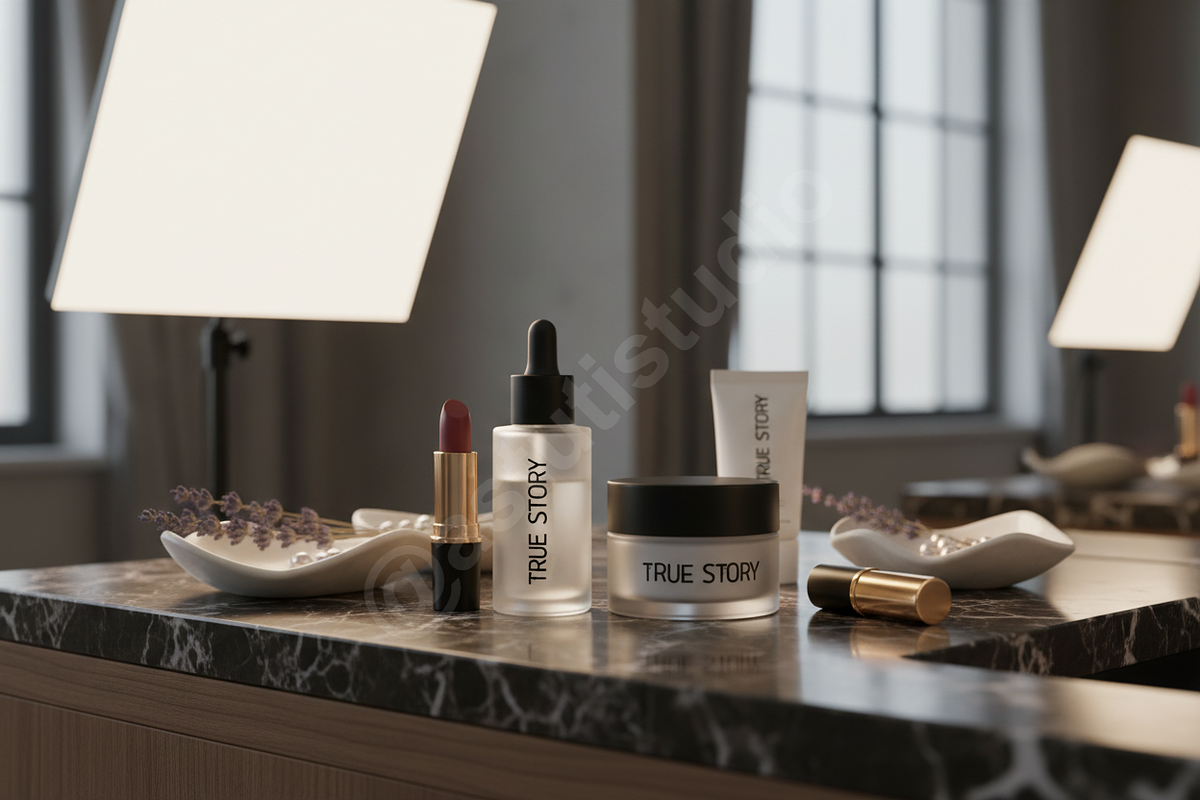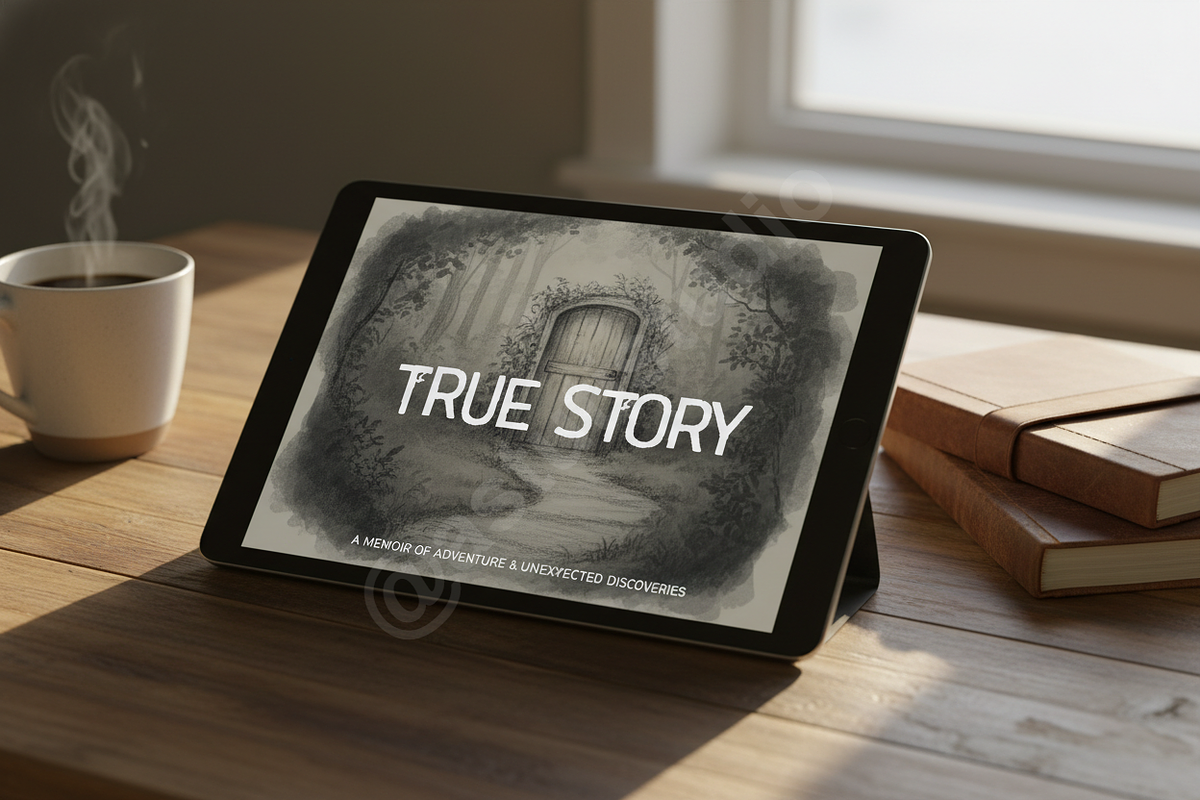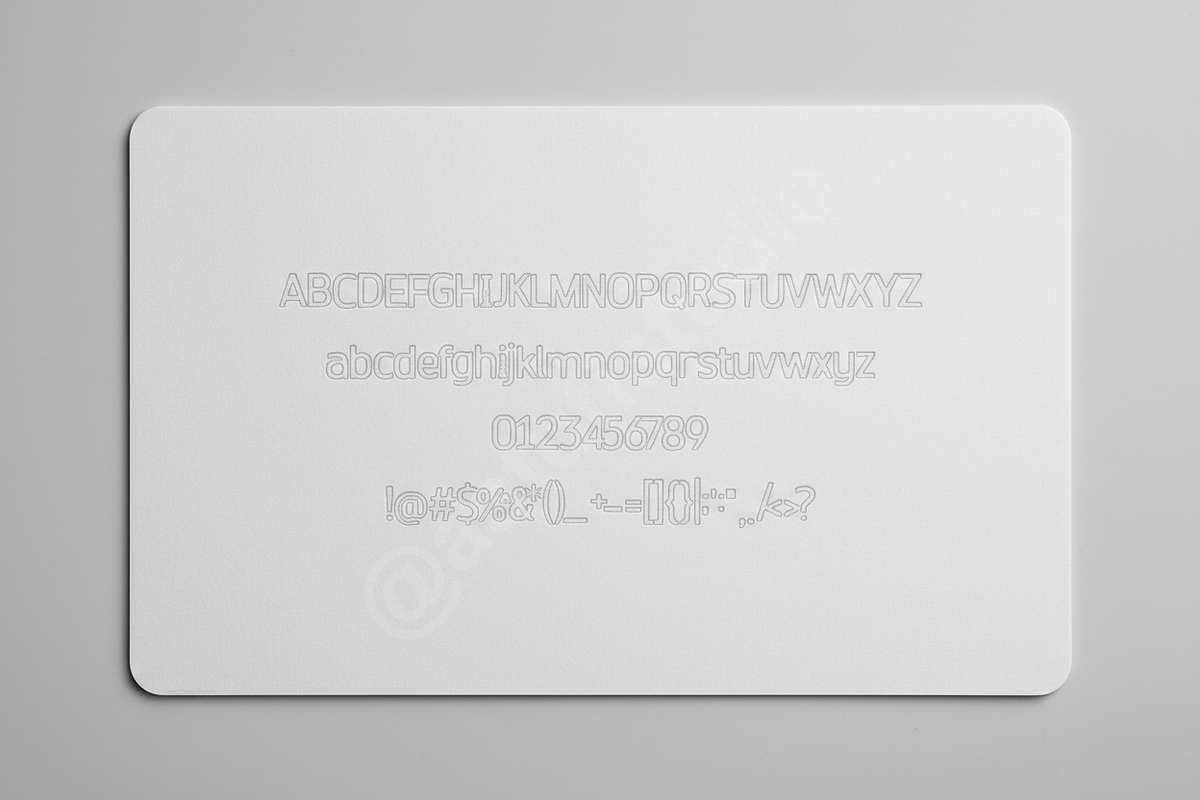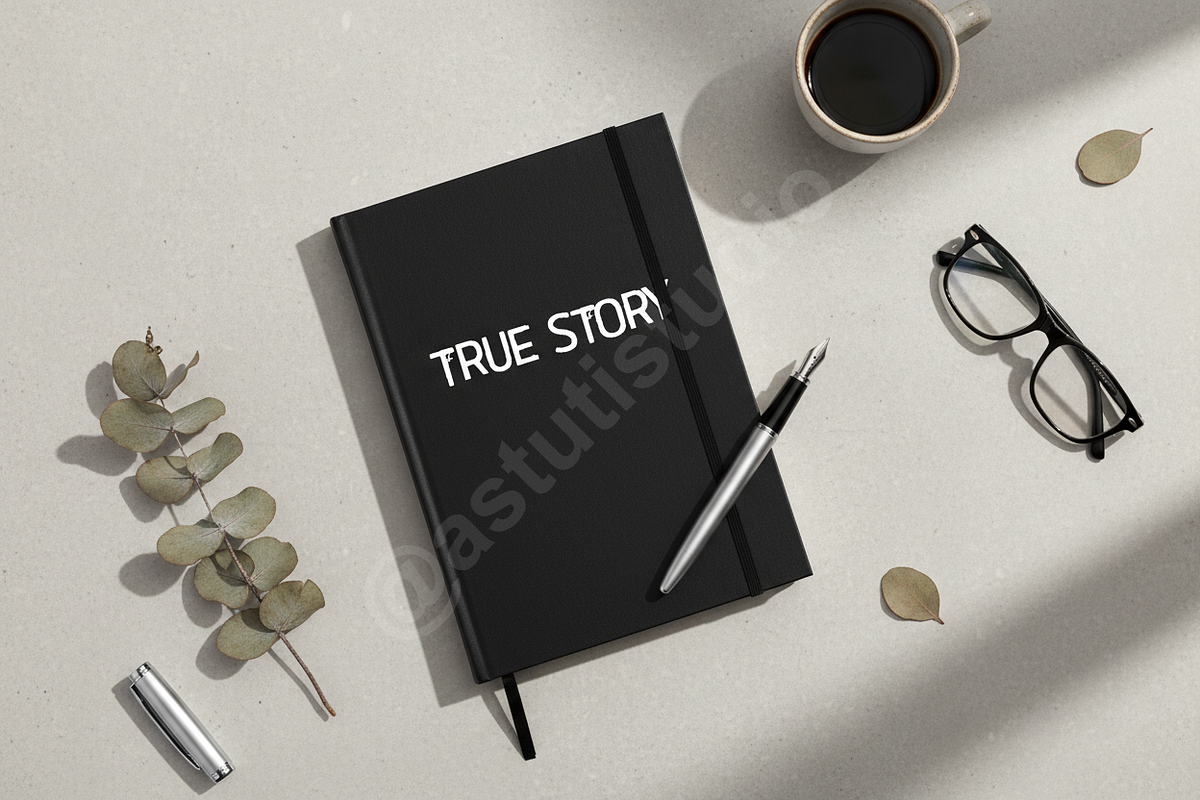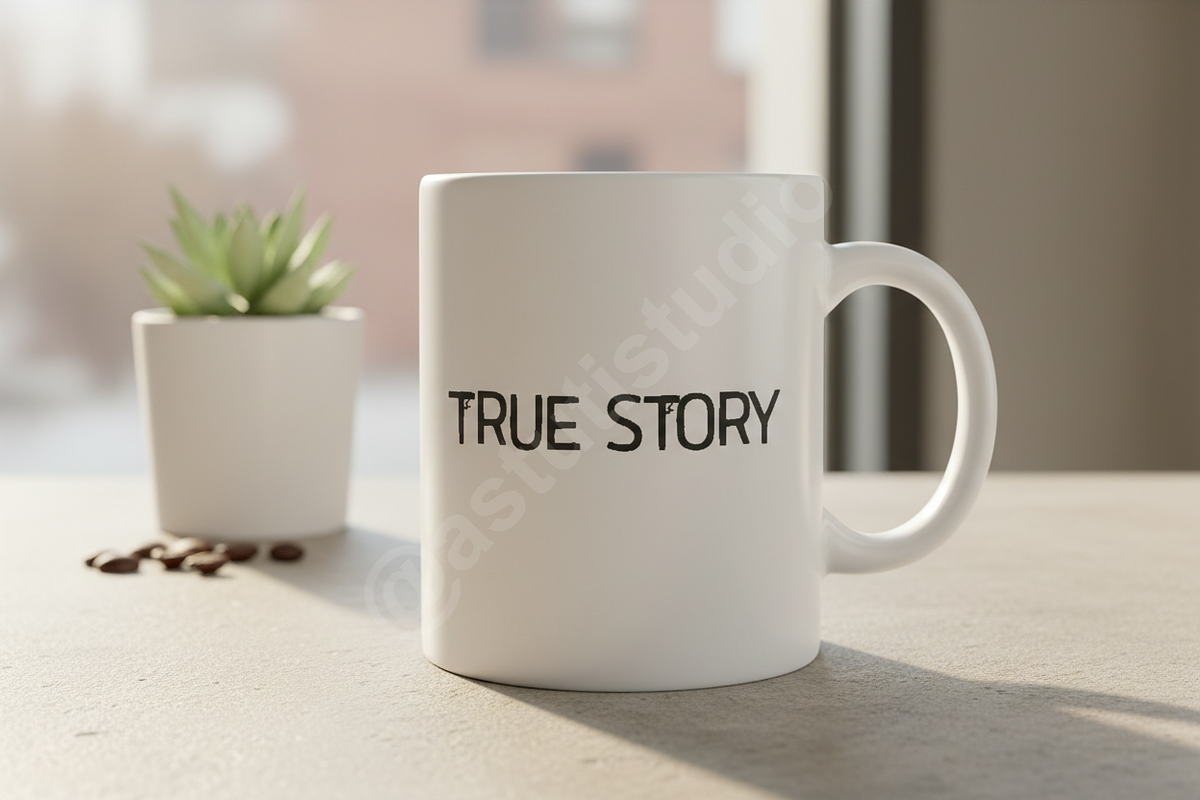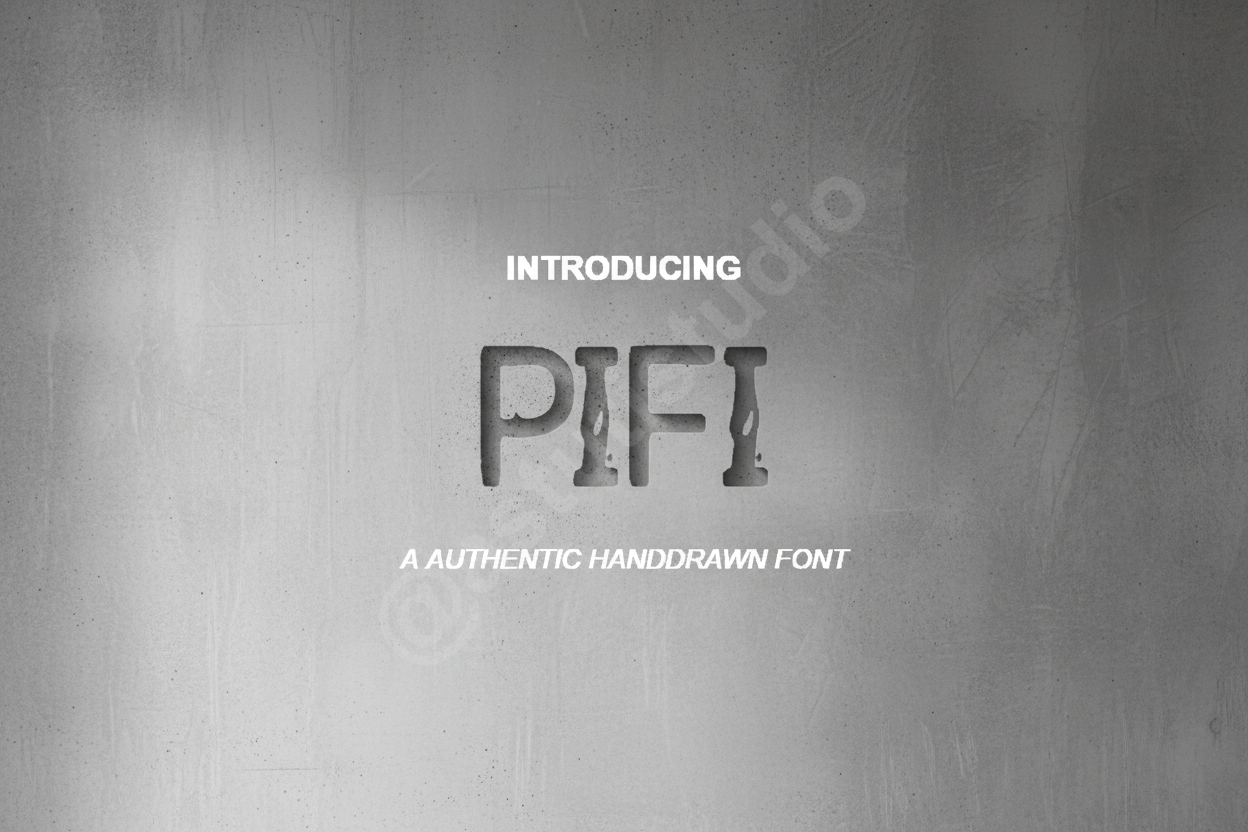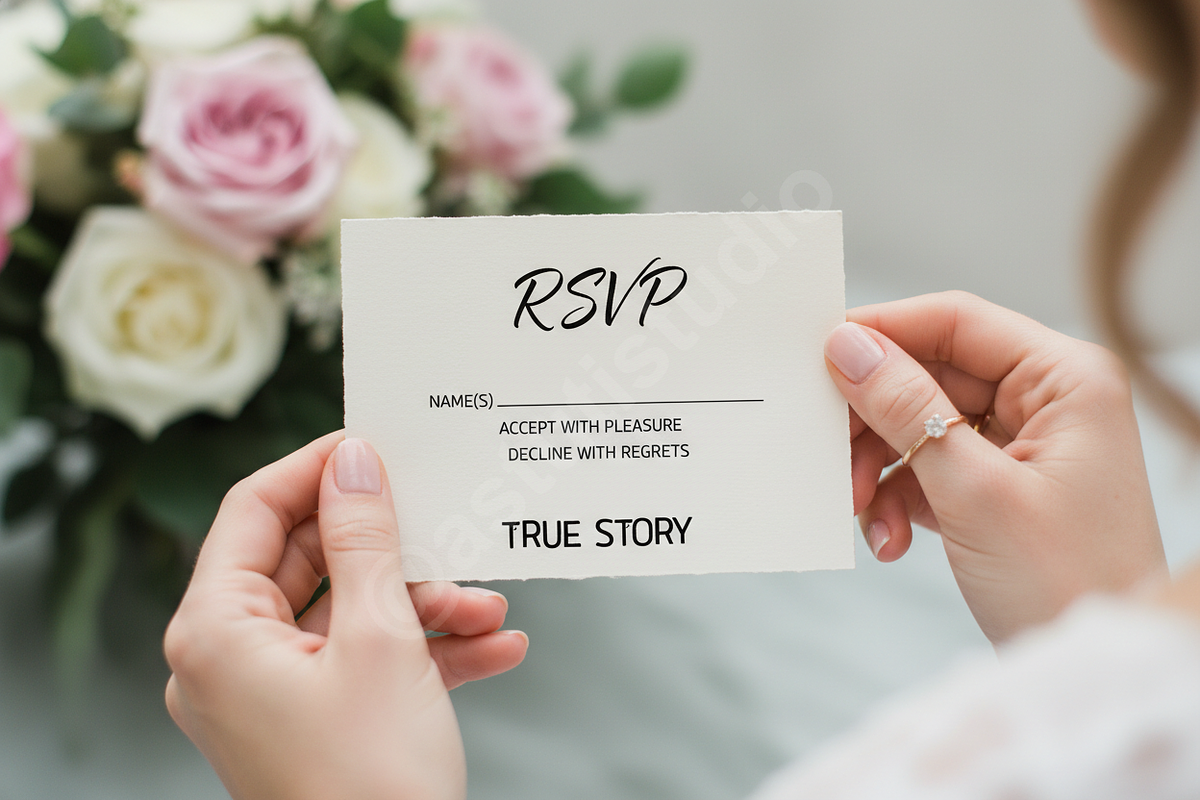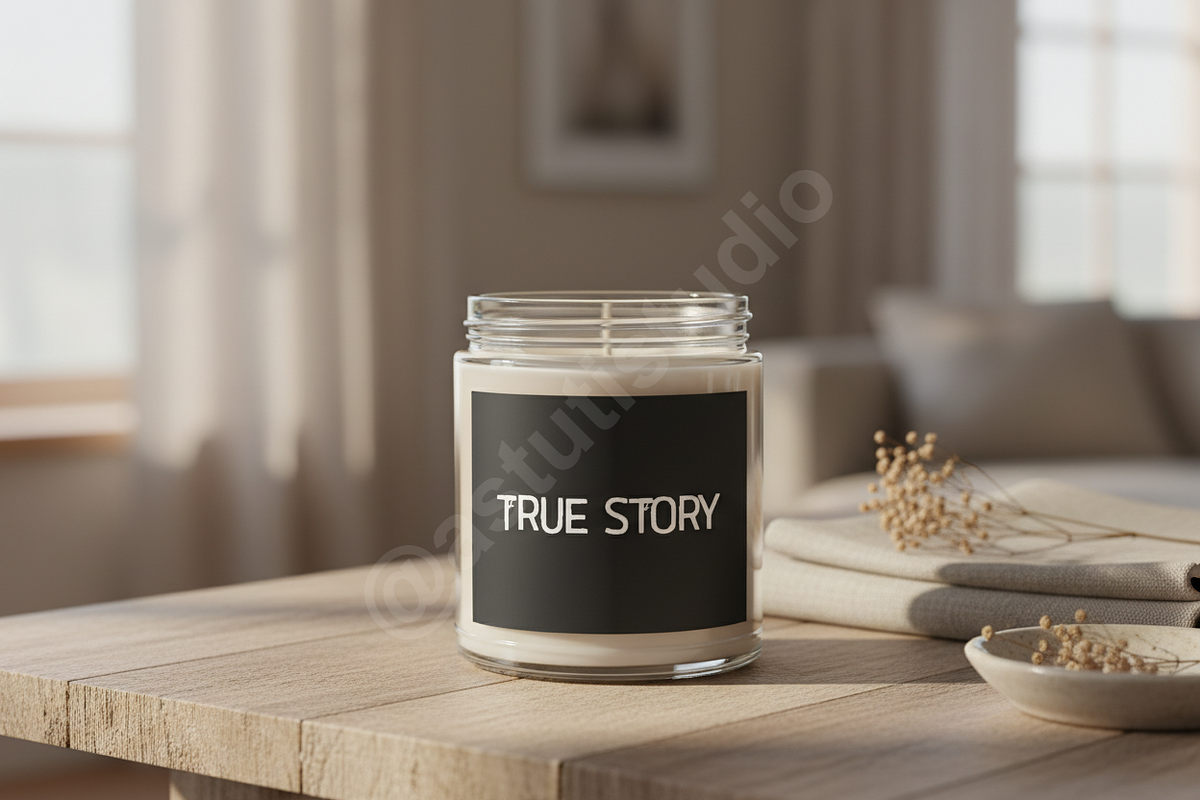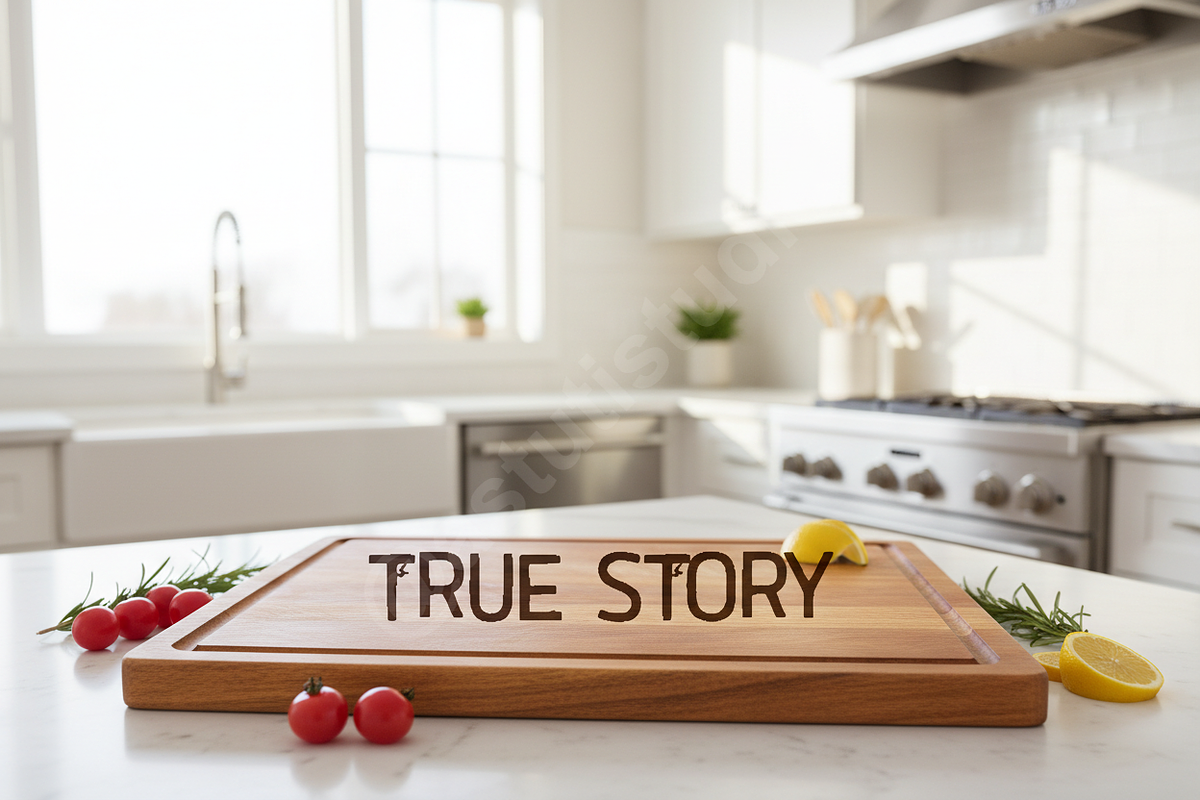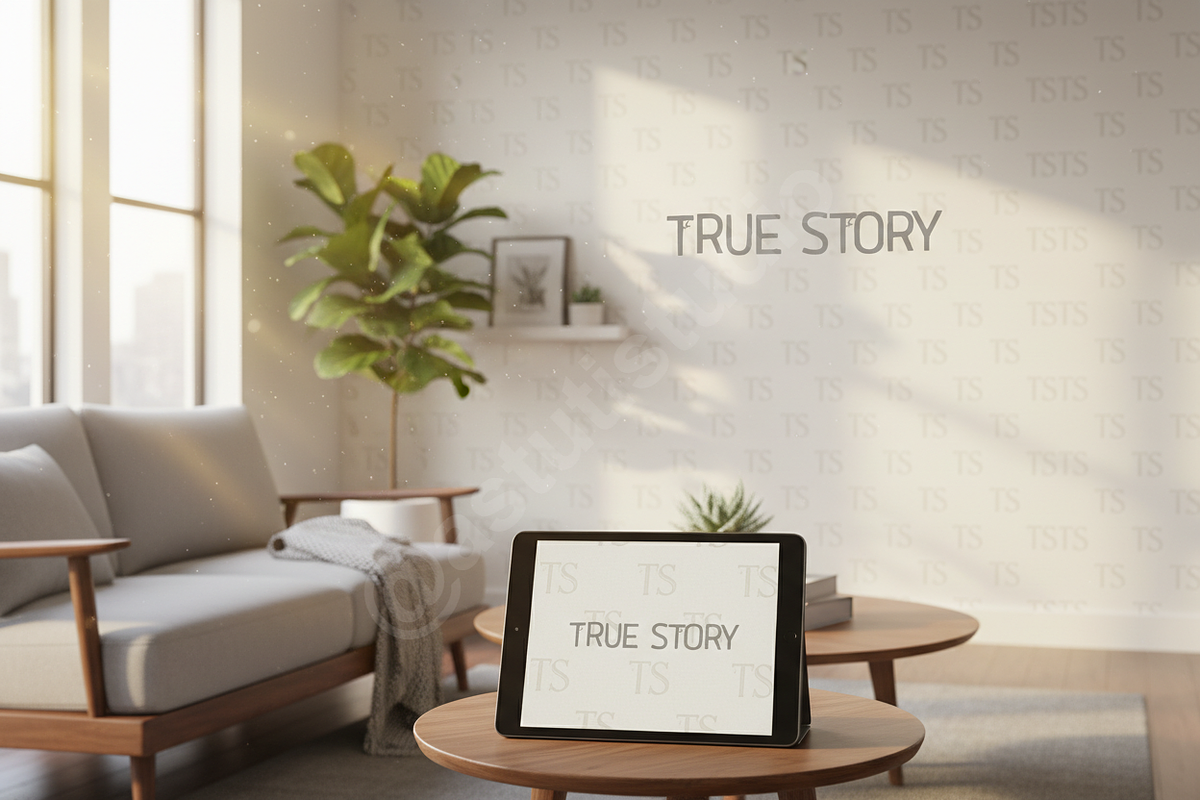
Pifi - Sophisticated Serif Typeface
INTRODUCTION Pifi is a premium serif typeface meticulously crafted to embody elegance and modern luxury. Inspired by high-fashion editorials and refined aesthetics, Pifi features balanced proportions and sophisticated curves that command attention while maintaining effortless readability. Whether you are designing for a boutique brand or a global fashion house, Pifi provides a touch of timeless class.
IDEAL FOR This typeface is the perfect choice for high-end luxury branding, sophisticated editorial layouts, sleek social media graphics, and premium packaging design.
- Elegant high-contrast strokes
- Unique discretionary ligatures
- Full multilingual character support
- Precise kerning and spacing
- Clean, minimalist aesthetic